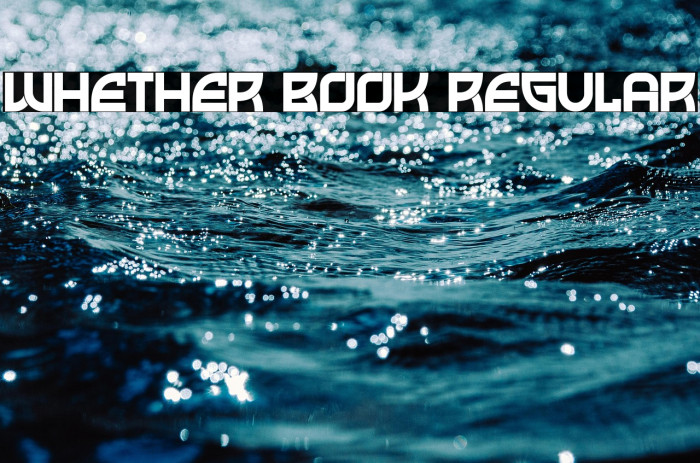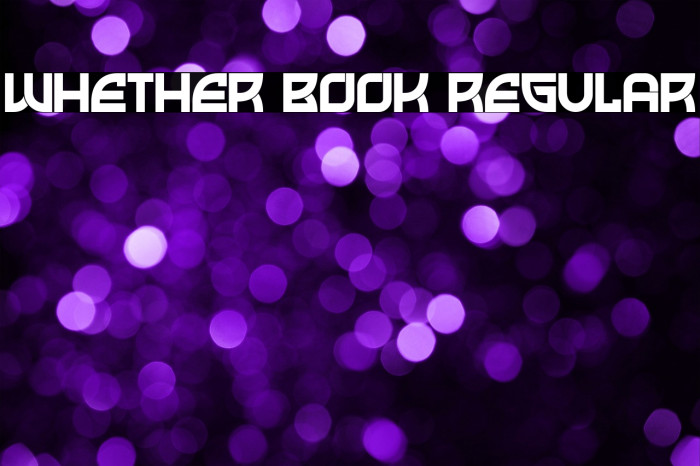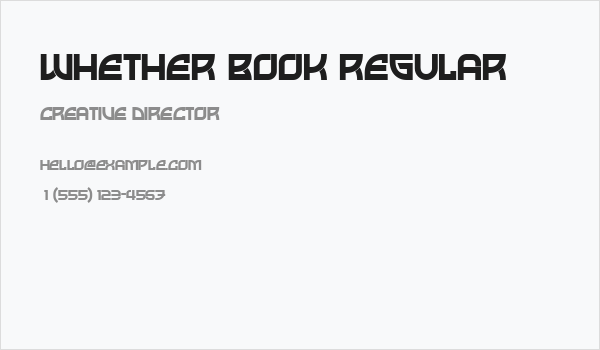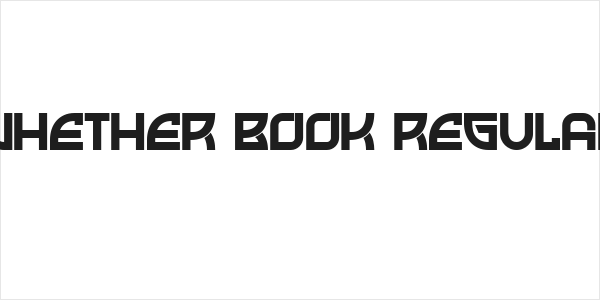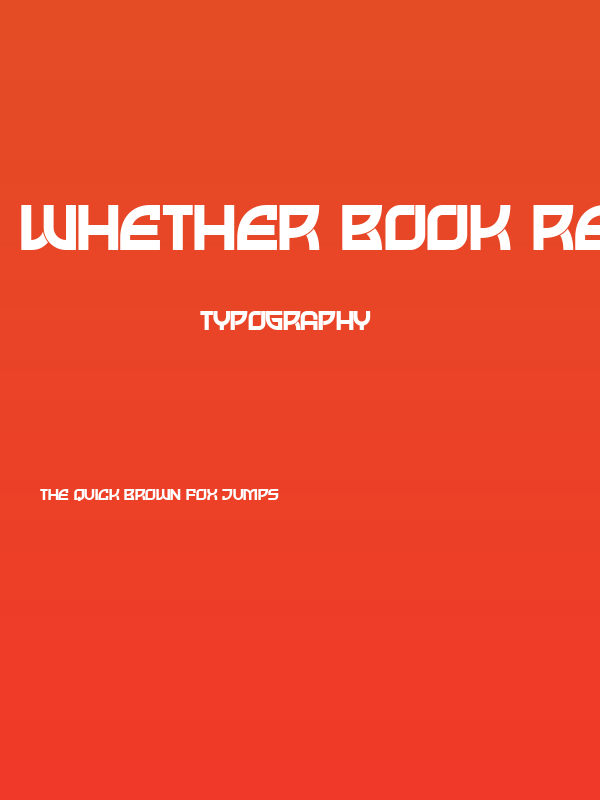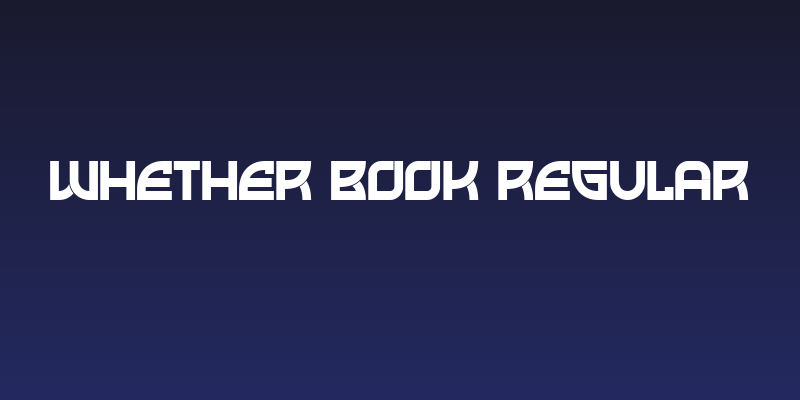
Whether Book Regular Font
Whether Book Regular Description
This font features a bold and futuristic design with geometric elements and sharp angles. The characters are constructed with a unique blend of straight lines and curves, creating a visually striking appearance. The uppercase letters are particularly distinctive, with a blocky and robust style that commands attention. The numerals and special characters maintain the same boldness, ensuring consistency throughout. This font is ideal for projects that require a modern and edgy look, making it suitable for technology-related themes or contemporary branding.
| Proposed Projects | Ideal for technology branding, modern posters, and futuristic design projects. |